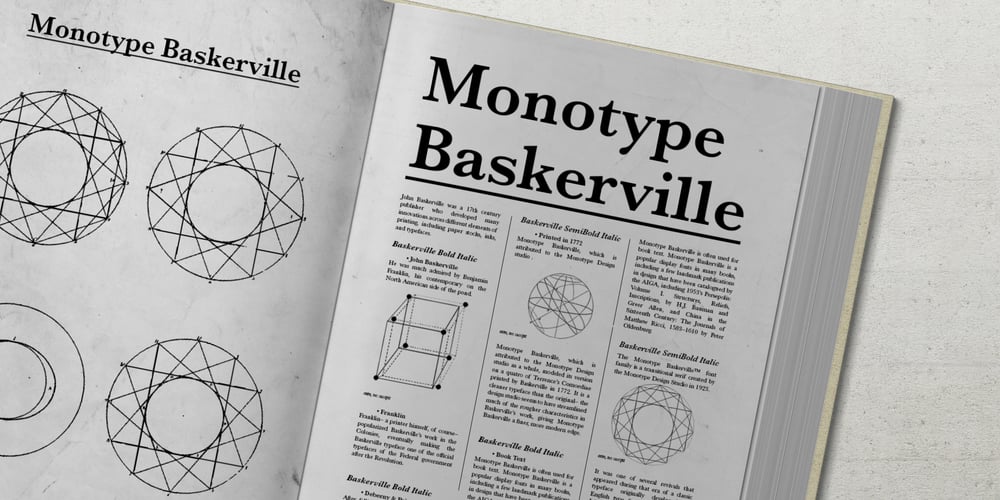
Monotype Baskerville
Monotype Baskerville font
Monotype Baskerville Font Family was designed by John Baskerville, Monotype Design Studio and published by Monotype. Monotype Baskerville contains 6 styles and family package options. John Baskerville (1706-1775) was an accomplished writing master and printer from Birmingham, England. He was the designer of several types, punchcut by John Handy, which are the basis for the fonts that bear the name Baskerville today. The excellent quality of his printing influenced such famous printers as Didot in France and Bodoni in Italy. Though he was known internationally as an innovator of technique and style, his high standards for paper and ink quality made it difficult for him to compete with local commercial printers. However, his fellow Englishmen imitated his types, and in 1768, Isaac Moore punchcut a version of Baskerville’s letterforms for the Fry Foundry. Baskerville produced a masterpiece folio Bible for Cambridge University, and today, his types are considered to be fine representations of eighteenth century rationalism and neoclassicism. Legible and eminently dignified, Baskerville makes an excellent text typeface; and its sharp, high-contrast forms make it suitable for elegant advertising pieces as well.The Linotype portfolio offers many versions of this design: ITC New Baskerville® was designed by John Quaranda in 1978. Baskerville Cyrillic was designed by the Linotype Design Studio. Baskerville Greek was designed by Matthew Carter in 1978. Baskerville™ Classico was designed by Franko Luin in 1995.”